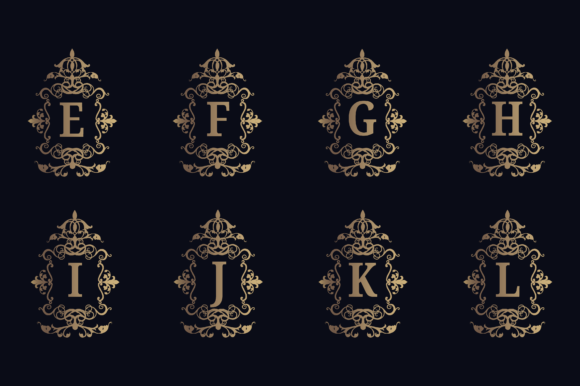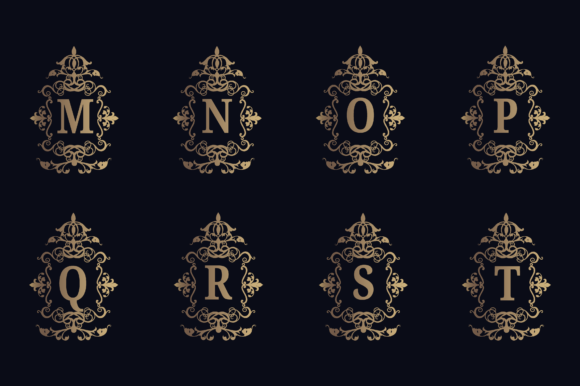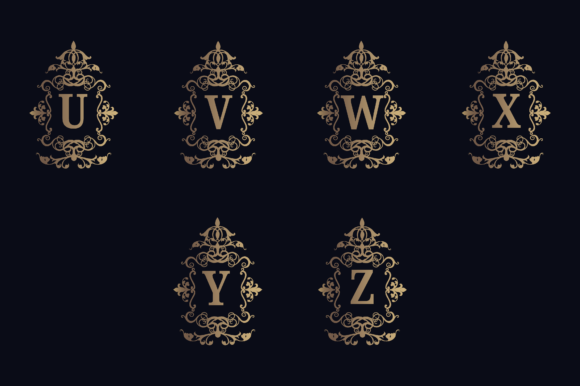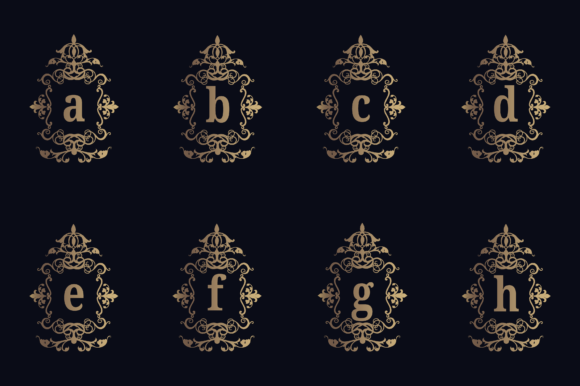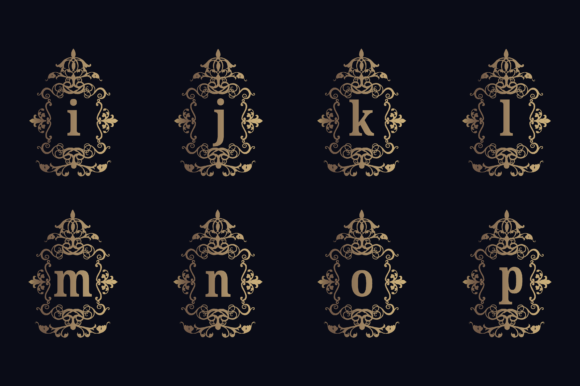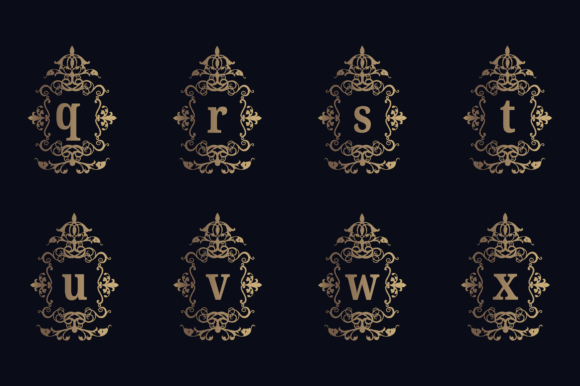
Unleashing the Elegance of the Baroque Lettering Font
Have you ever found yourself lost in a sea of creative possibilities, searching for the perfect font to elevate your designs? You’re not alone. As designers, we’re always on the lookout for unique elements that can add a touch of sophistication to our work. It was one of those moments when I stumbled upon the Baroque Lettering Font, and I knew I had to share it with you.
The Baroque Lettering Font is a decorative font designed to generate multiple decorated glyphs, perfect for creating elegant and luxurious designs. From social posts to flyers, invitations, and special occasions like Valentine’s Day and weddings, this font is a valuable tool for designers looking to add a touch of refinement to their work. With its versatility and ornate details, the Baroque Lettering Font is a must-have for anyone seeking to take their designs to the next level.
Baroque Lettering Font Key Features
- Unique Characteristics: The Baroque Lettering Font is a highly ornate and decorative font, featuring intricate details and flourishes that evoke the style of 17th-century Baroque architecture. It is perfect for adding a touch of elegance and sophistication to designs.
- Font Style: The Baroque Lettering Font is available in a range of styles, including Regular, Italic, Bold, and Bold Italic, to provide flexibility and versatility in design applications.
Baroque Lettering Font Review
I recently had the chance to work with the Baroque Lettering Font, and I must say it’s a unique and beautiful addition to any design project. ✨ The intricate details and flourishes of the font make it perfect for creating luxurious and elegant designs.
- Unique aesthetic: The Baroque Lettering Font has a distinct look that sets it apart from other fonts. ✨
- High-quality design: The font is well-designed and crafted with attention to detail. ✨
- Flexible: The font can be used for a variety of projects, from invitations to logos. ✨
However, there are a few limitations to consider: ⚠️ The font may be difficult to read for certain users due to its complex design. Additionally, it may not be the best choice for projects where readability is a top priority. ⚠️
Overall, I’m impressed with the Baroque Lettering Font. While it may have some limitations, its unique aesthetic and high-quality design make it a great choice for designers looking to add some luxury and elegance to their projects.
Getting the Most Out of Baroque Lettering Font
Use Baroque Lettering Font to add elegance and sophistication to your designs. Pair it with bold, contrasting colors and ornate illustrations to create a luxurious look. Experiment with different font sizes and styles to create visual interest and depth.
Baroque Lettering Font is perfect for creating invitations, greeting cards, and other special occasion materials. It’s also great for designing book covers, magazine titles, and other publications that require a touch of elegance and sophistication.